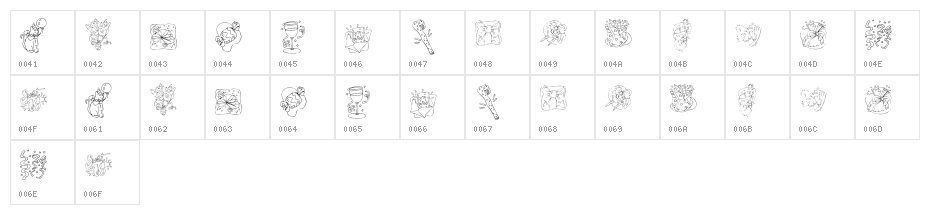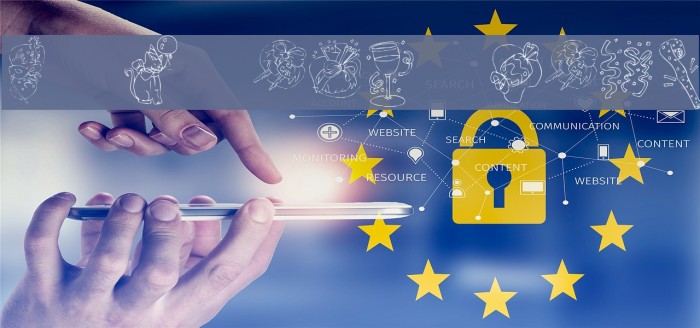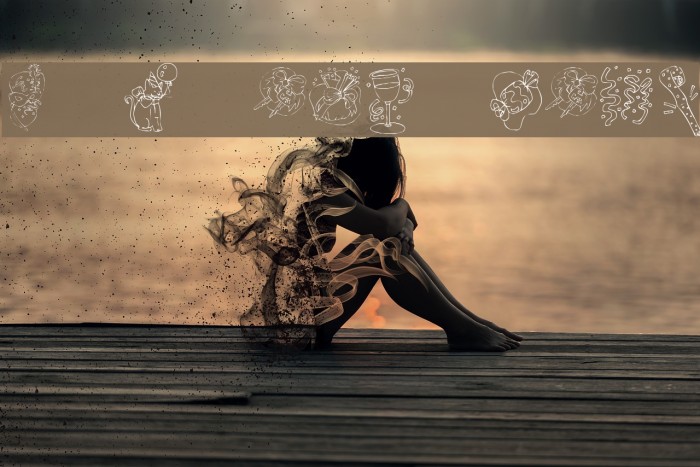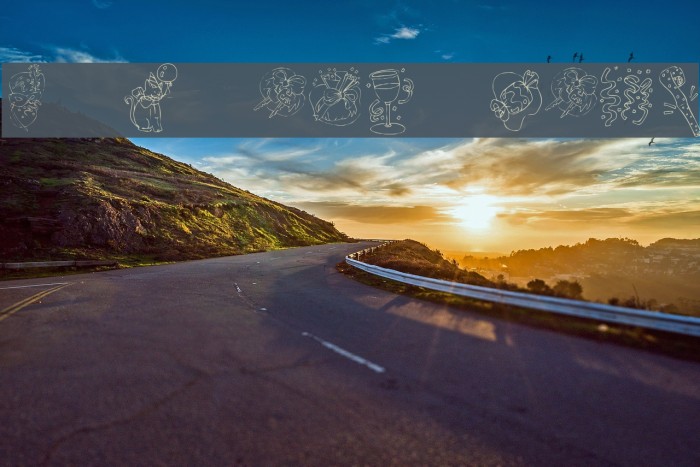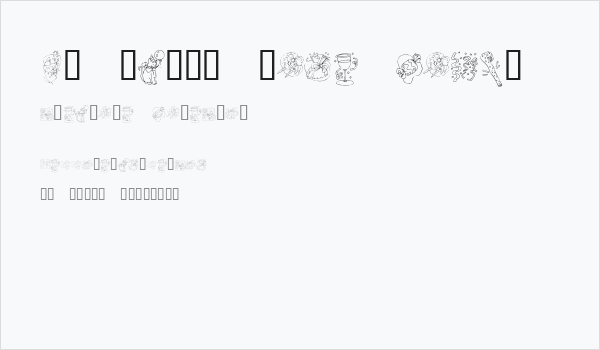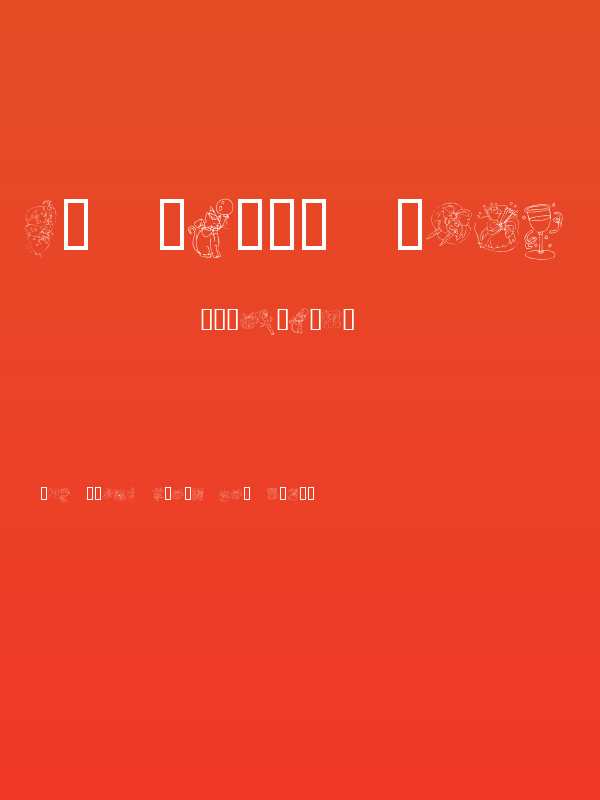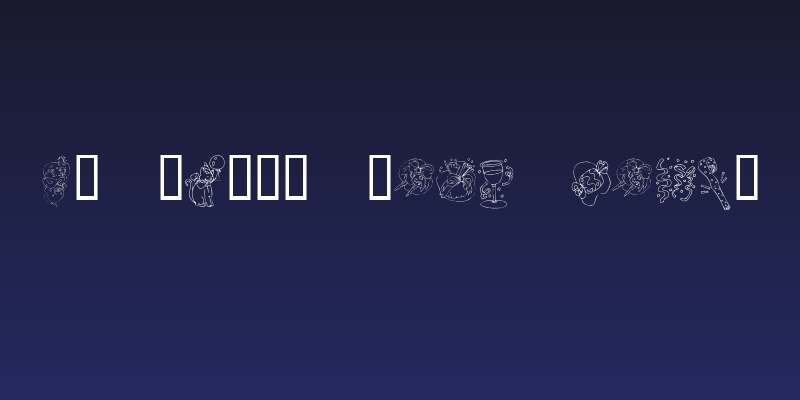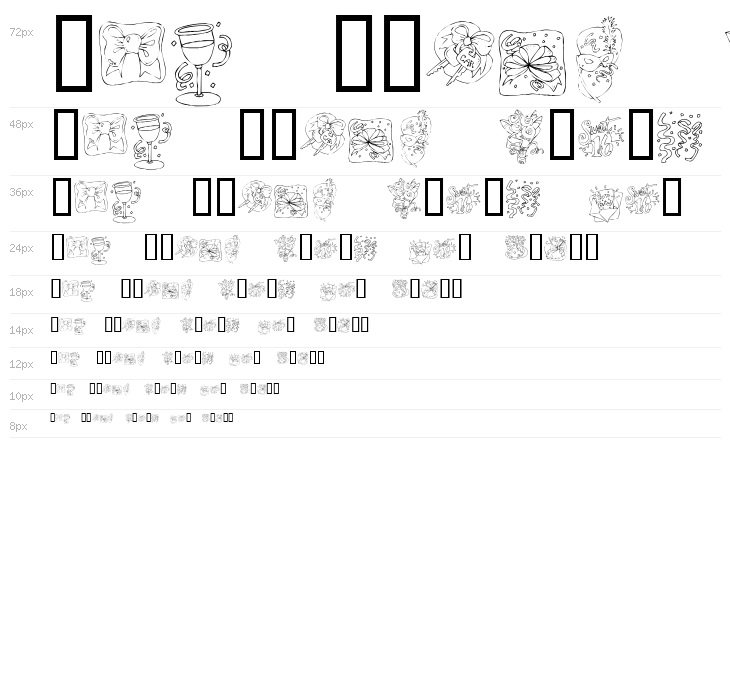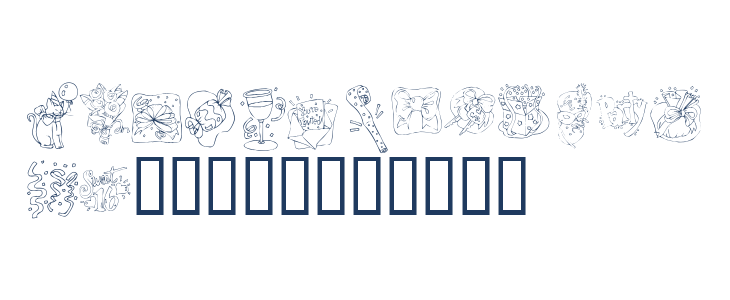
KR Party Time Dings Font
KR Party Time Dings Description
This is a decorative dingbat font featuring playful and whimsical party-themed illustrations. Each character is represented by a unique drawing, including elements like party hats, balloons, confetti, and celebratory drinks. The style is light-hearted and festive, making it ideal for adding a fun touch to designs. The illustrations are detailed yet maintain a simple line art style, ensuring they are easily recognizable and versatile for various uses. The font does not include traditional alphabetic or numeric characters, focusing solely on these themed icons.
| Use Case | Logos, Headlines, Decorative elements |
| Proposed Projects | Ideal for party invitations, event flyers, scrapbooking, and festive decorations. |